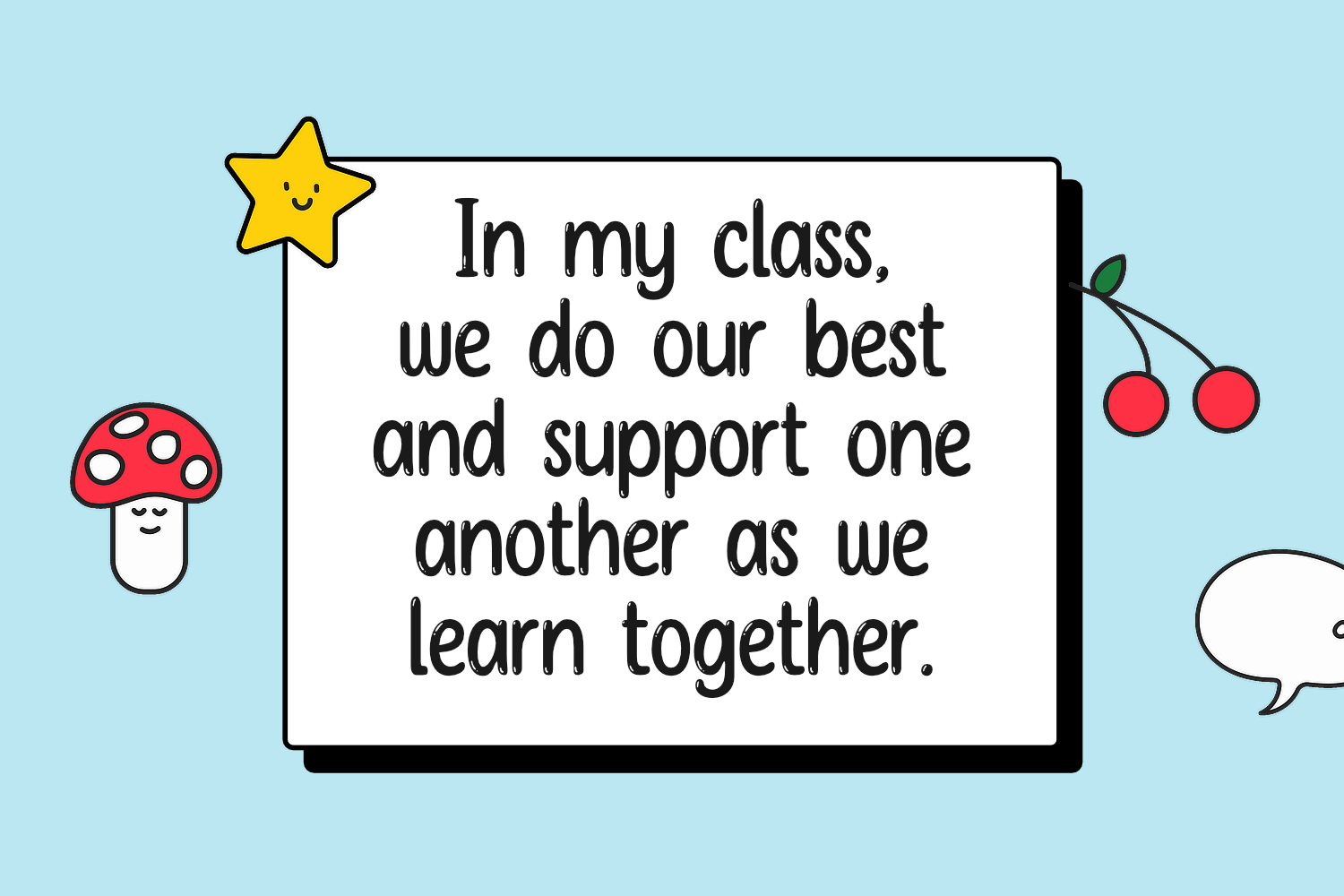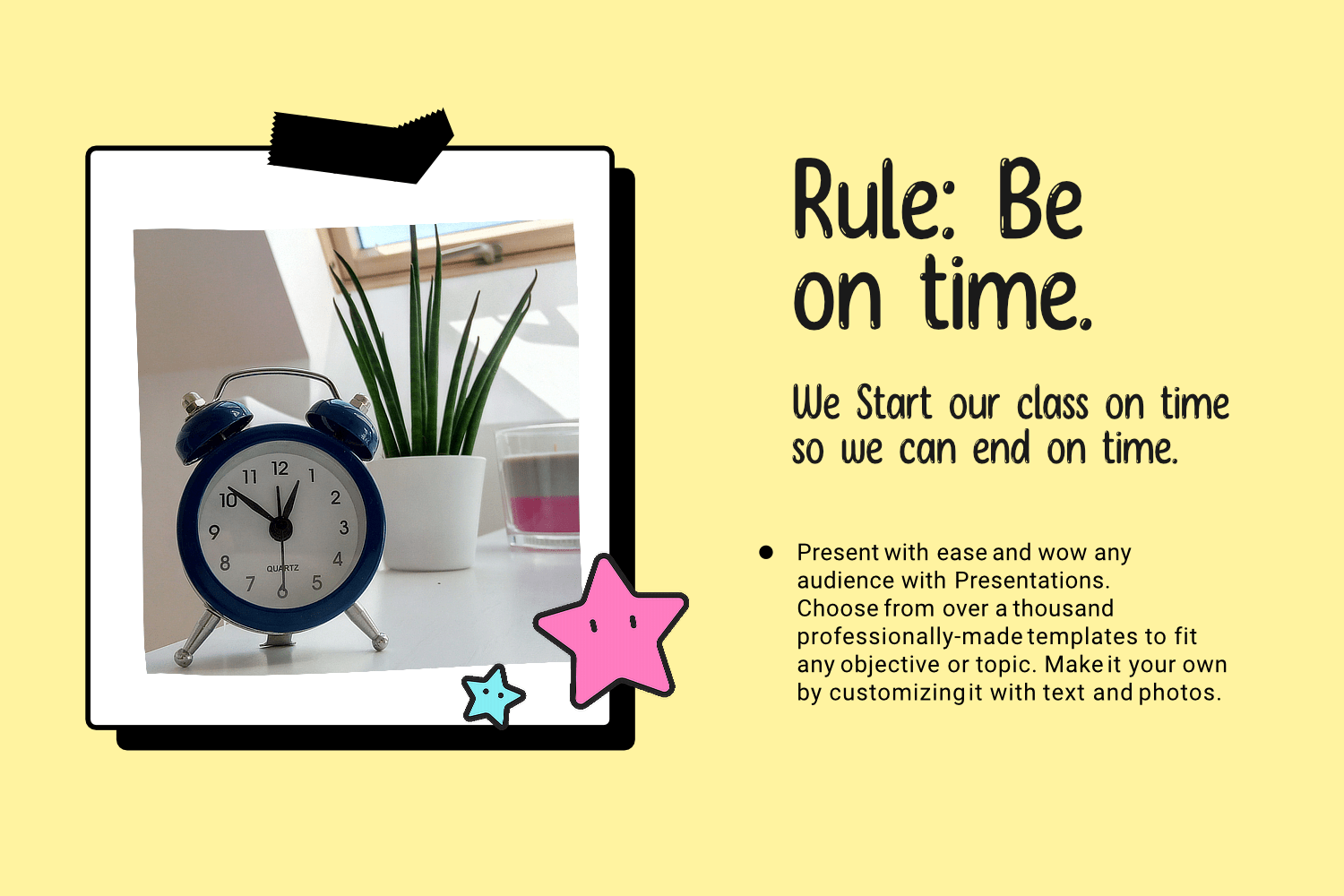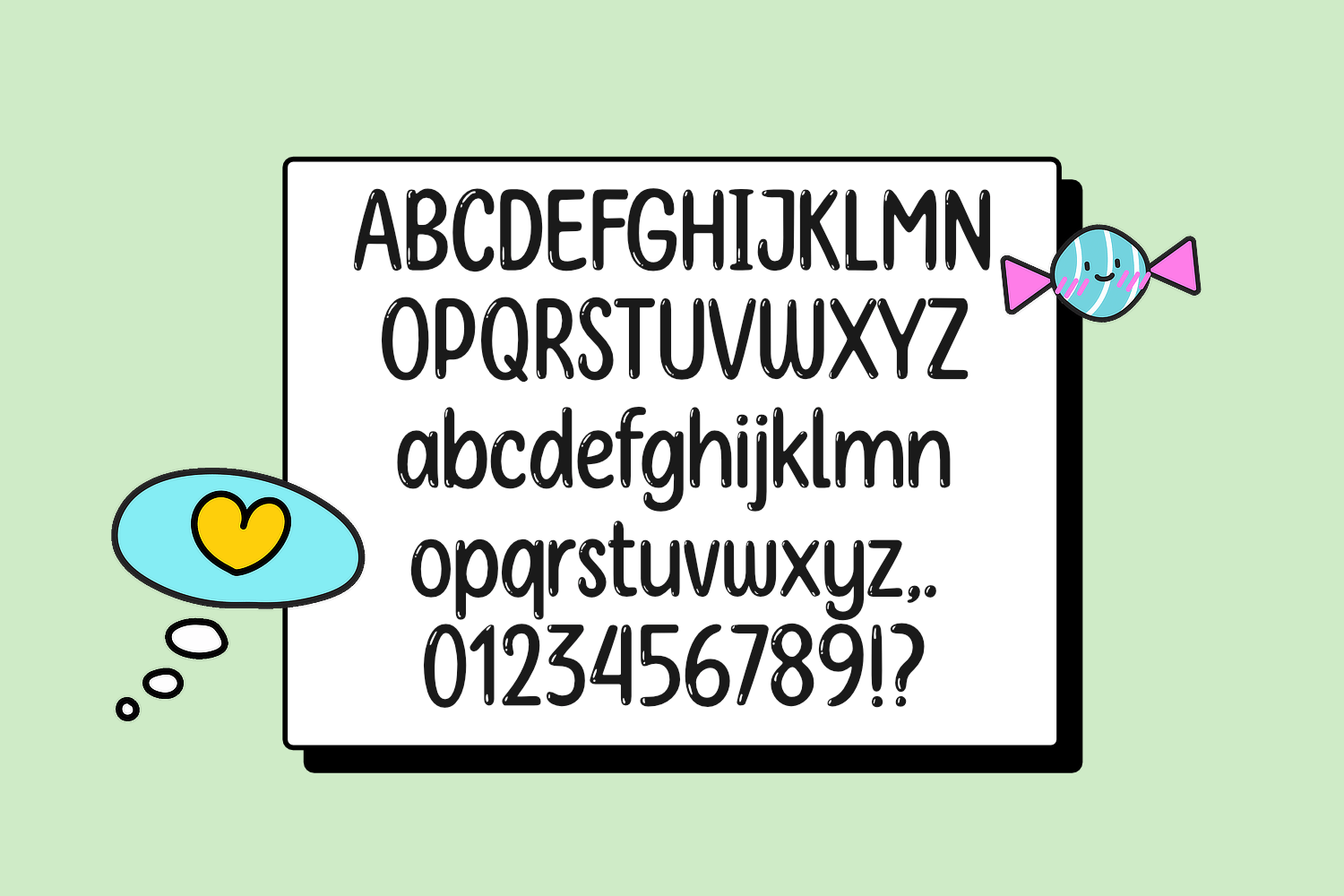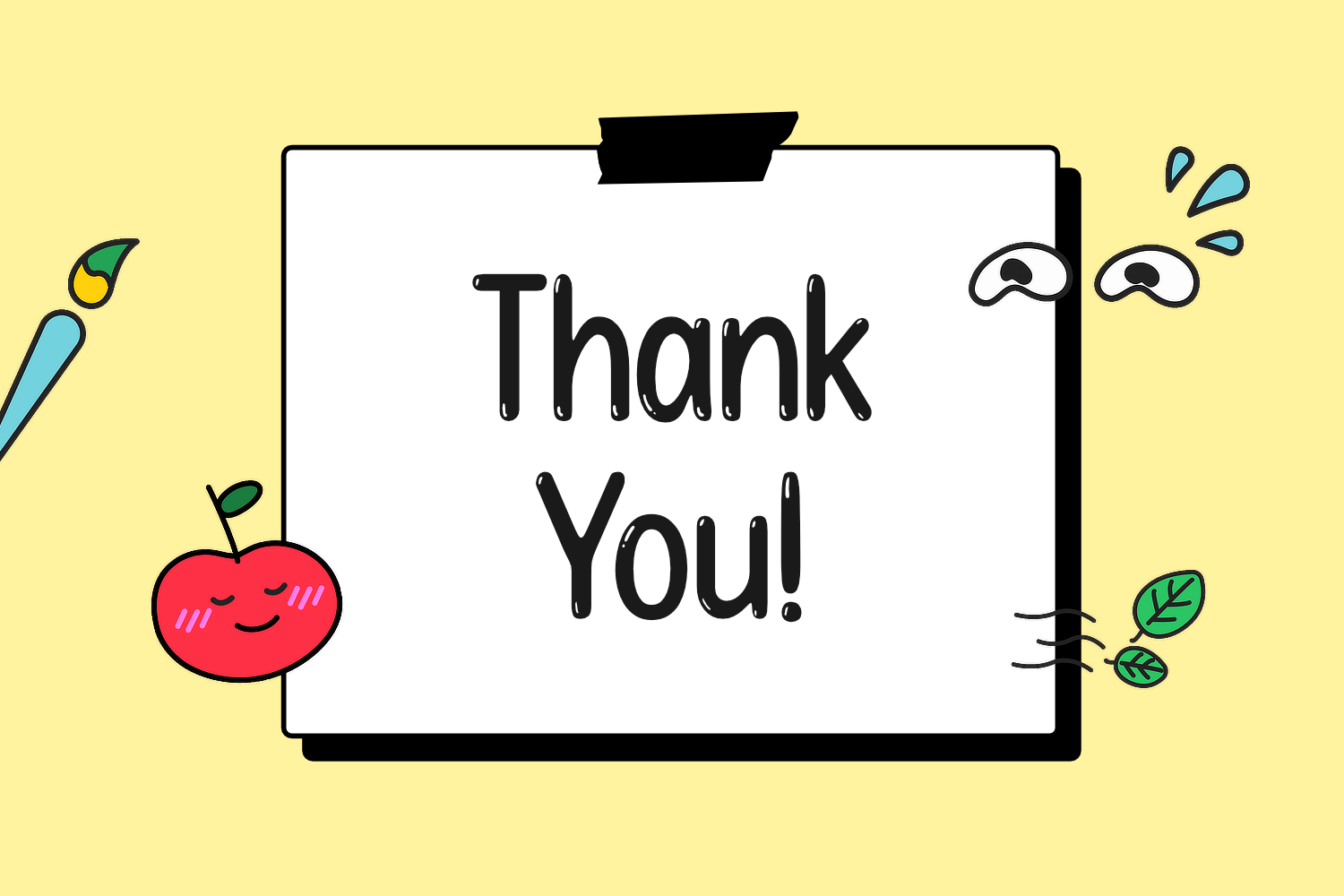
Shiny Flakes Display Font
This is a cute, simple and adaptable display font. Add it to each of your party invitation, gathering or pretty much any design that requires a touch of youth and joy.